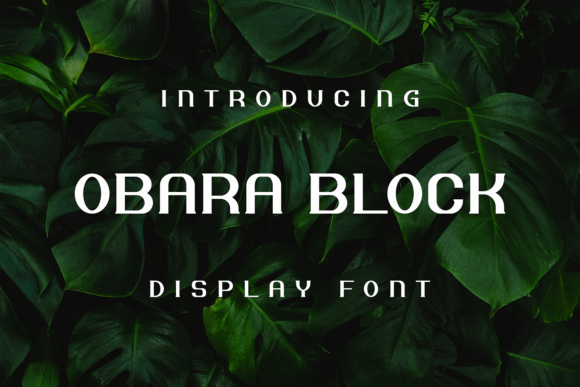
Embark on a typographic journey with Obara Block, a display font that captivates with its striking presence and intricate details. Each letterform is meticulously crafted to deliver a sense of boldness and uniqueness, making it the perfect choice for creating captivating headlines, posters, logos, and more.
With its strong, blocky structure, Obara Block exudes a sense of stability and authority, while the carefully placed serifs add a touch of elegance and sophistication. The result is a font that commands attention without overpowering, ensuring your message stands out from the crowd.
Whether you're designing for print or digital media, Obara Block is a versatile font that adapts seamlessly to a wide range of projects. Its clean lines and sharp edges make it ideal for creating impactful headlines, while its robust structure ensures legibility even at smaller sizes.
Step into a world of typographic possibilities with Obara Block, a display font that combines strength, elegance, and versatility. Let your creativity flourish as you explore the endless design opportunities it offers, crafting visual masterpieces that leave a lasting impression.